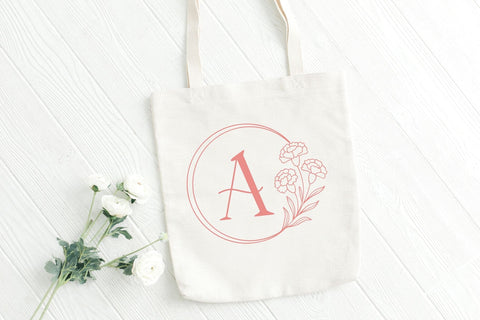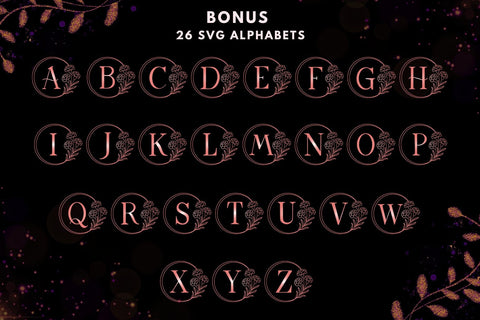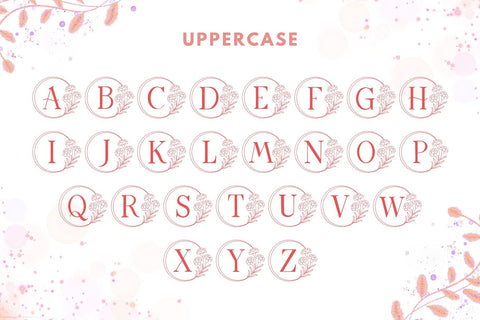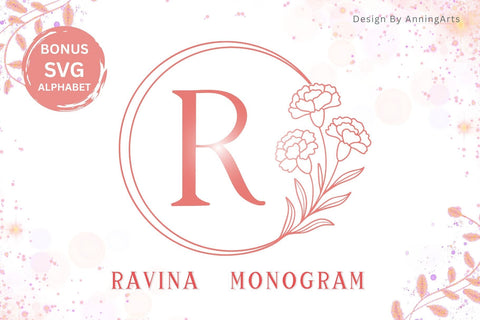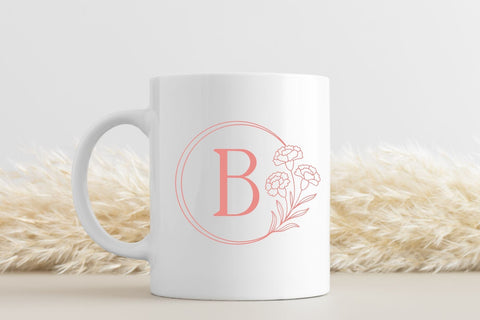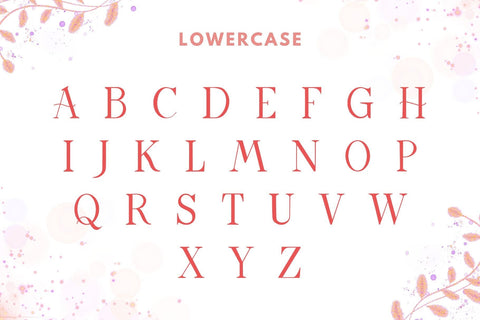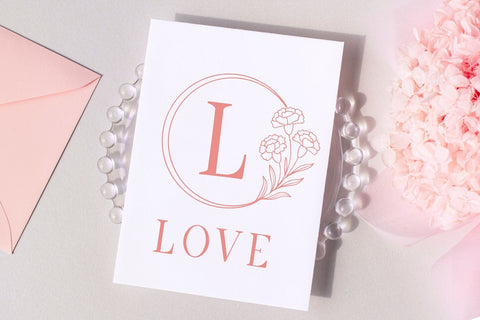
Ravina Monogram Font | Elegant Floral Alphabet with SVG Bonus
Ravina Monogram is an elegant floral serif font featuring beautifully designed monogram letters adorned with hand-drawn carnations. Perfect for wedding invitations, branding, logos, stationery, and more, this font brings a sophisticated and romantic vibe to your creative projects.